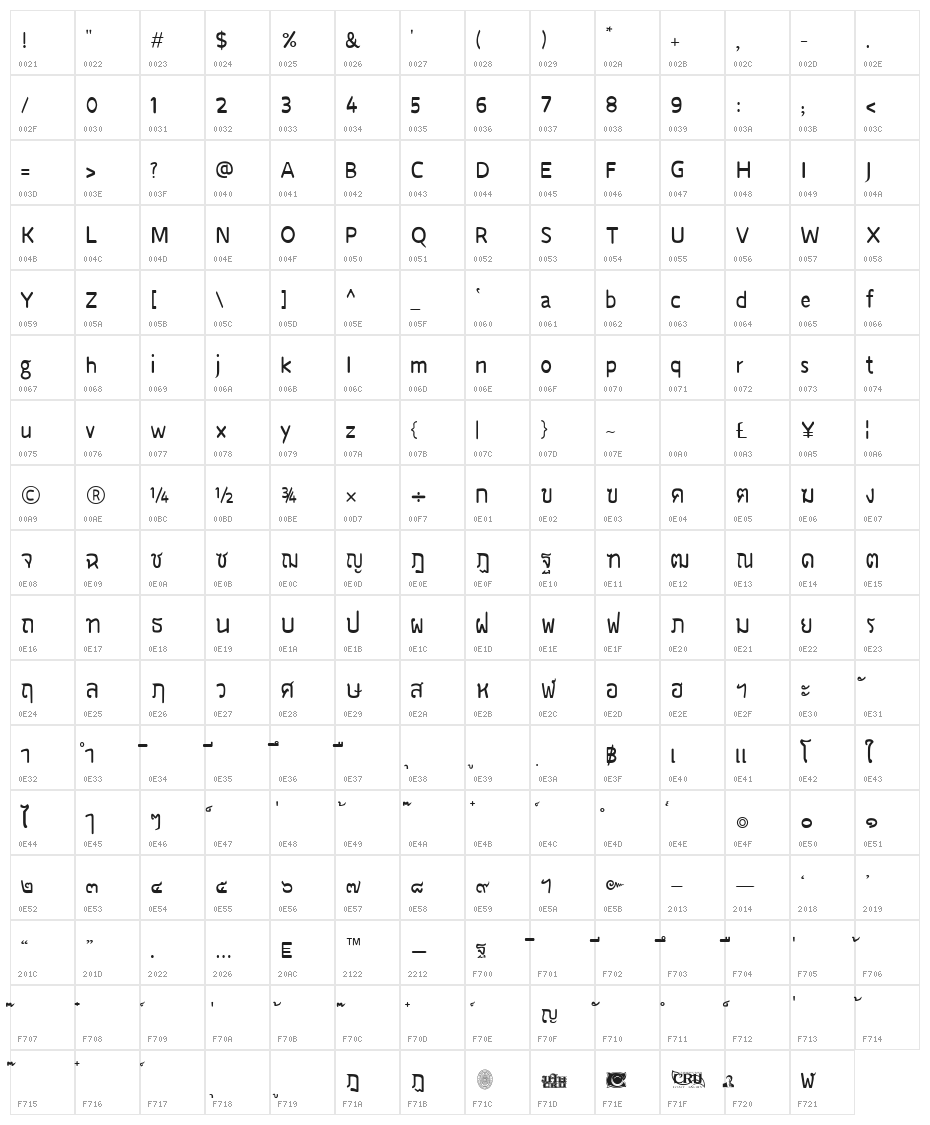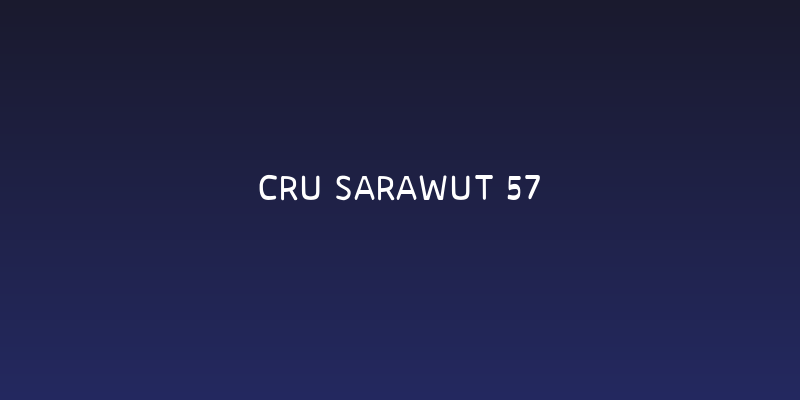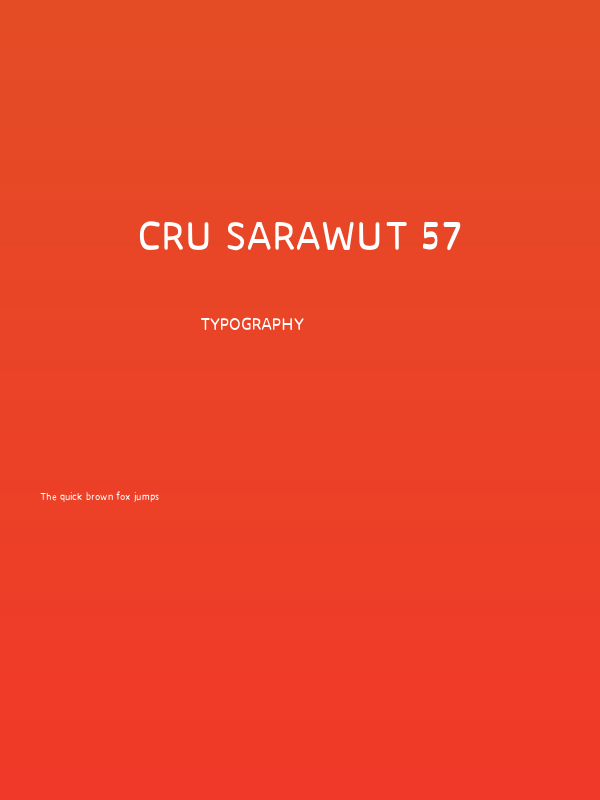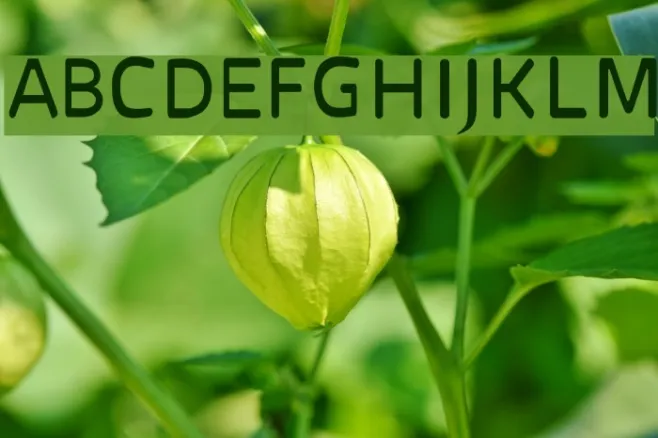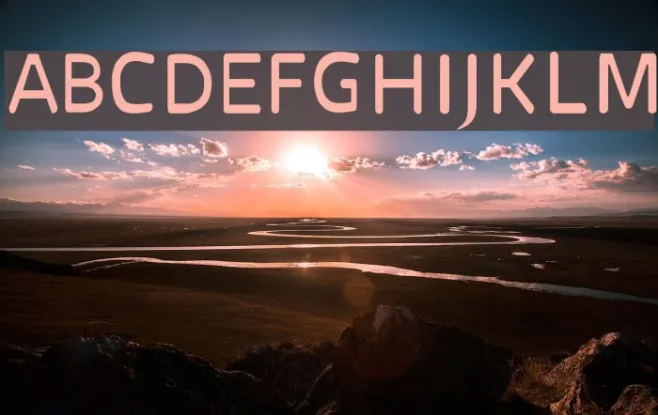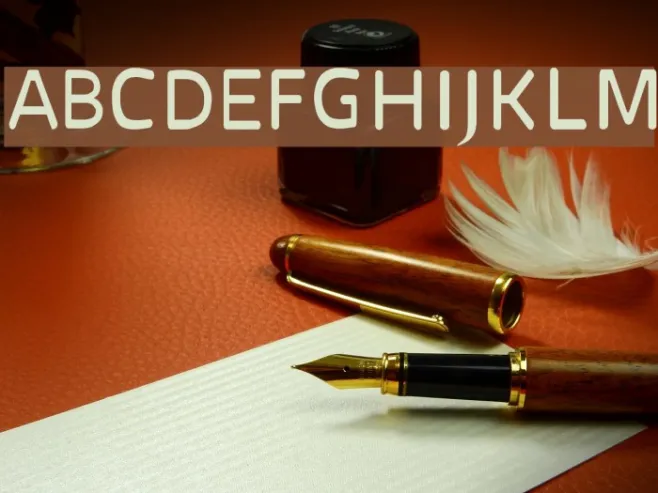
CRU Sarawut 57 Font
CRU Sarawut 57 Description
This font features a clean and modern sans-serif style with smooth curves and a uniform stroke width. The uppercase letters are bold and well-defined, while the lowercase letters maintain a consistent height and spacing, ensuring readability. The numerals are straightforward and align well with the overall design, making them suitable for various applications. Special characters are included, offering versatility for different contexts. The font's simplicity and clarity make it ideal for digital and print media, providing a professional and contemporary look.
| Proposed Projects | Ideal for web design, branding, advertising, and editorial layouts. |